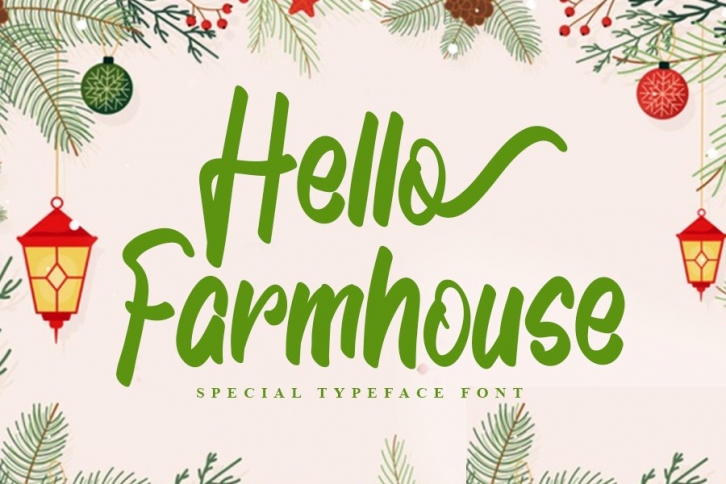
Hello Farmhouse - Special Typeface Font Download
Hello Farmhouse is a great font that was designed by InermediaSTUDIO. Imagine the amount of combinations you can create using this font! The archive is 14.93 MB and it was released on December 16, 2020. Hello Farmhouse looks beautiful on wedding invitations, greeting cards, logos, posters, labels, t-shirt designs, logos, business cards and is perfect for use in ink or watercolor works, fashion, magazines, packaging and food menus, children's books and more!